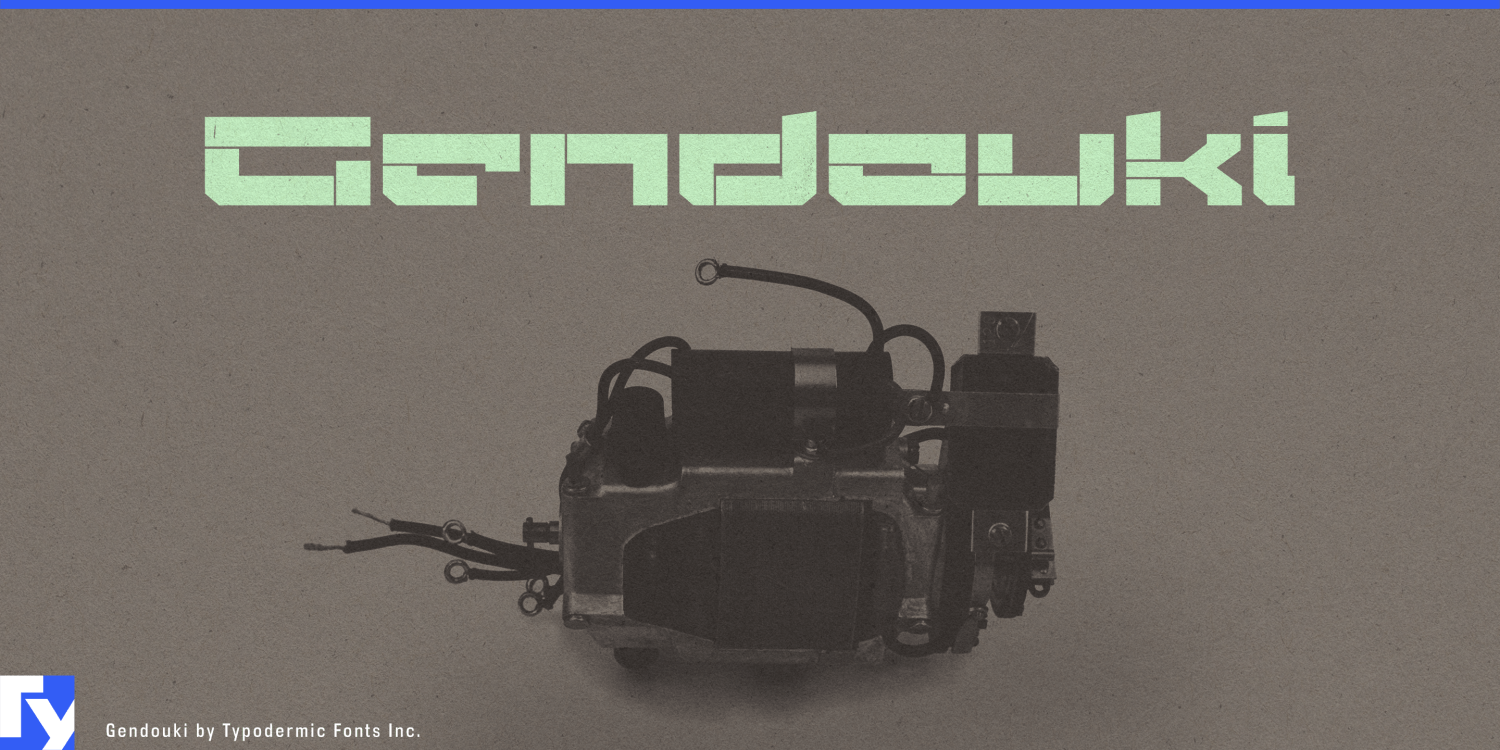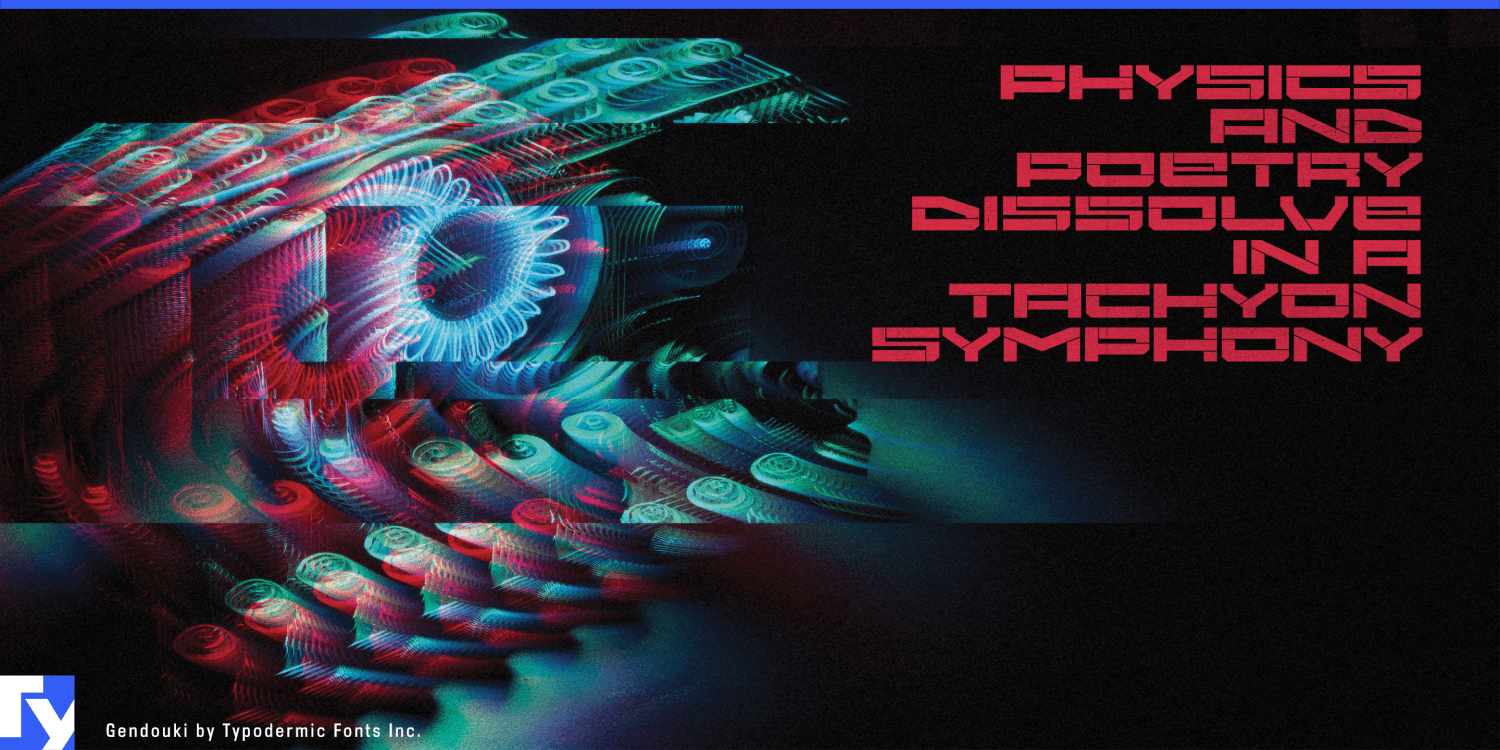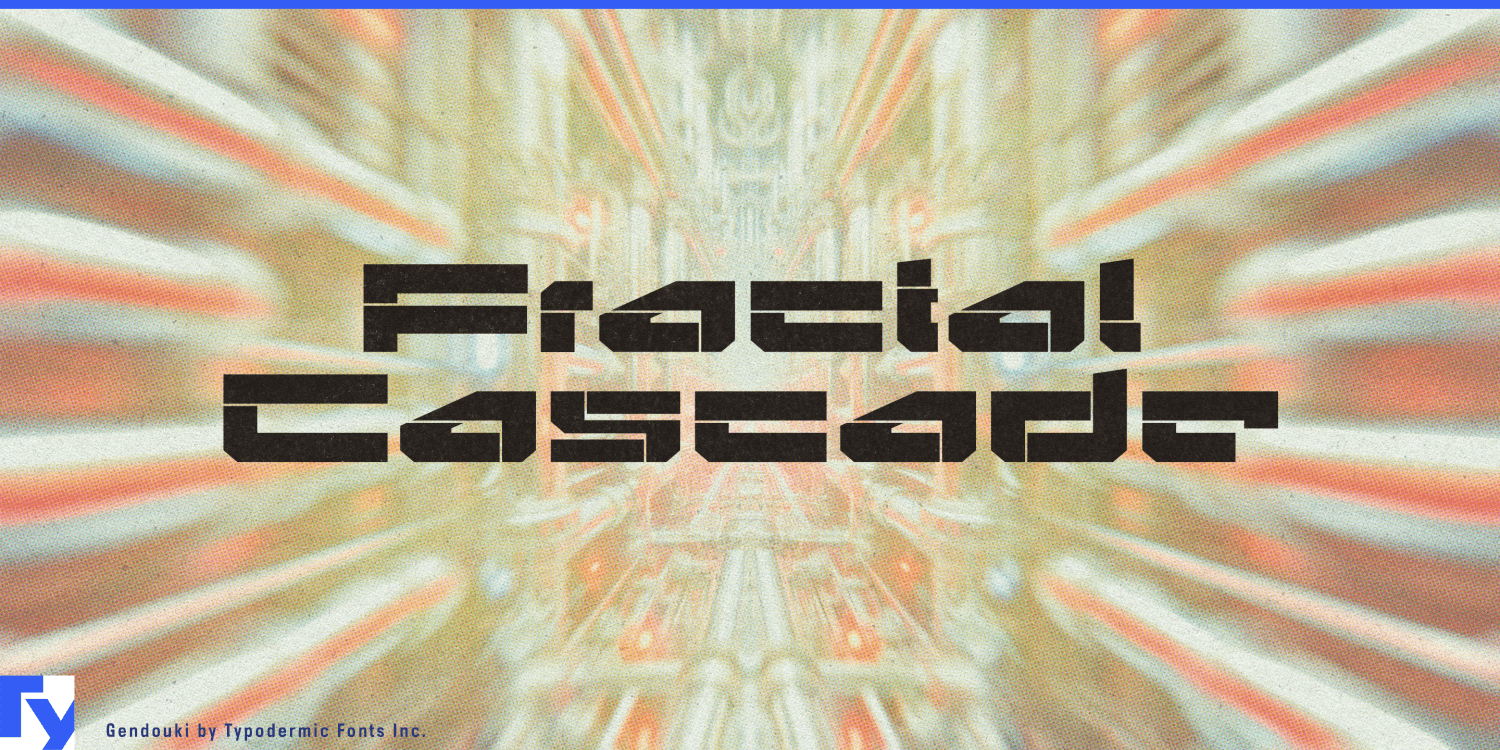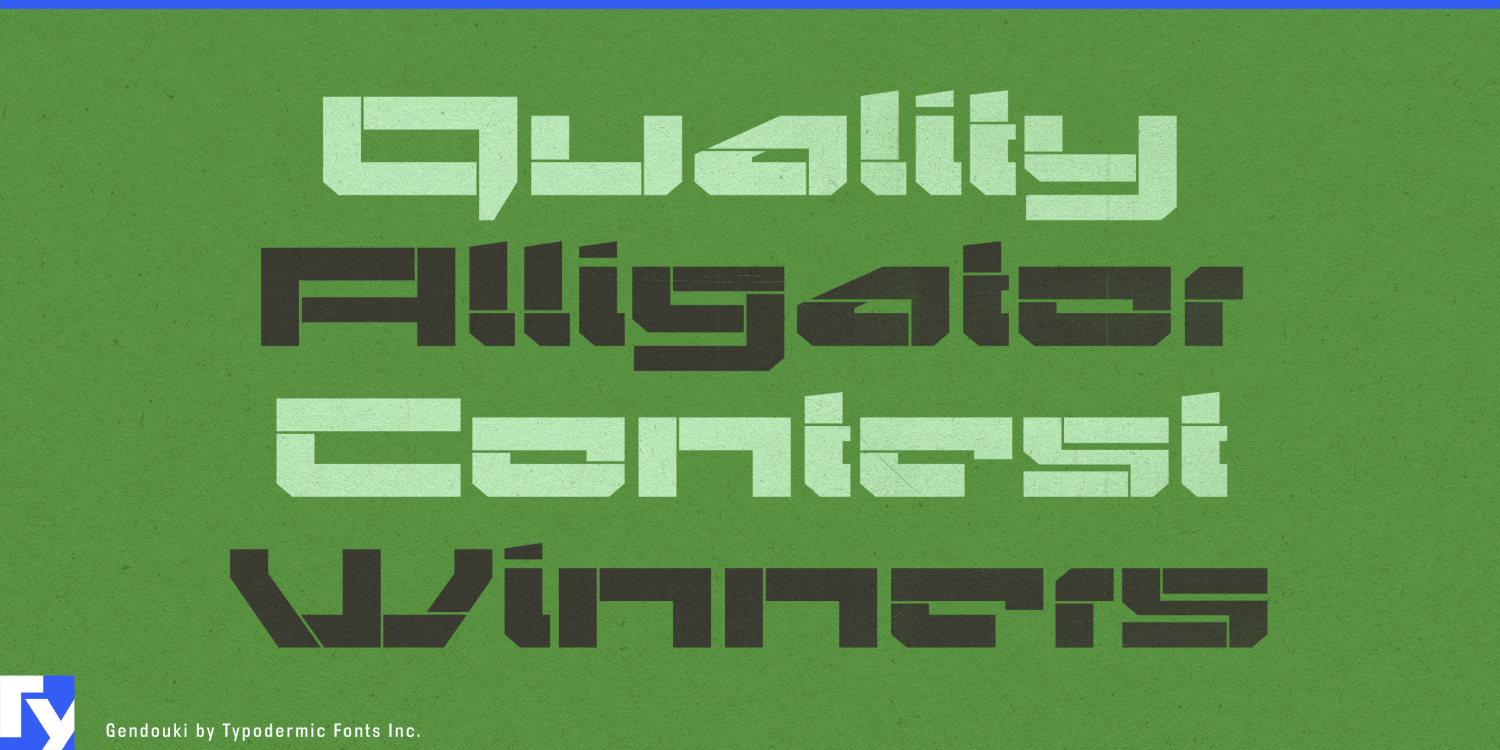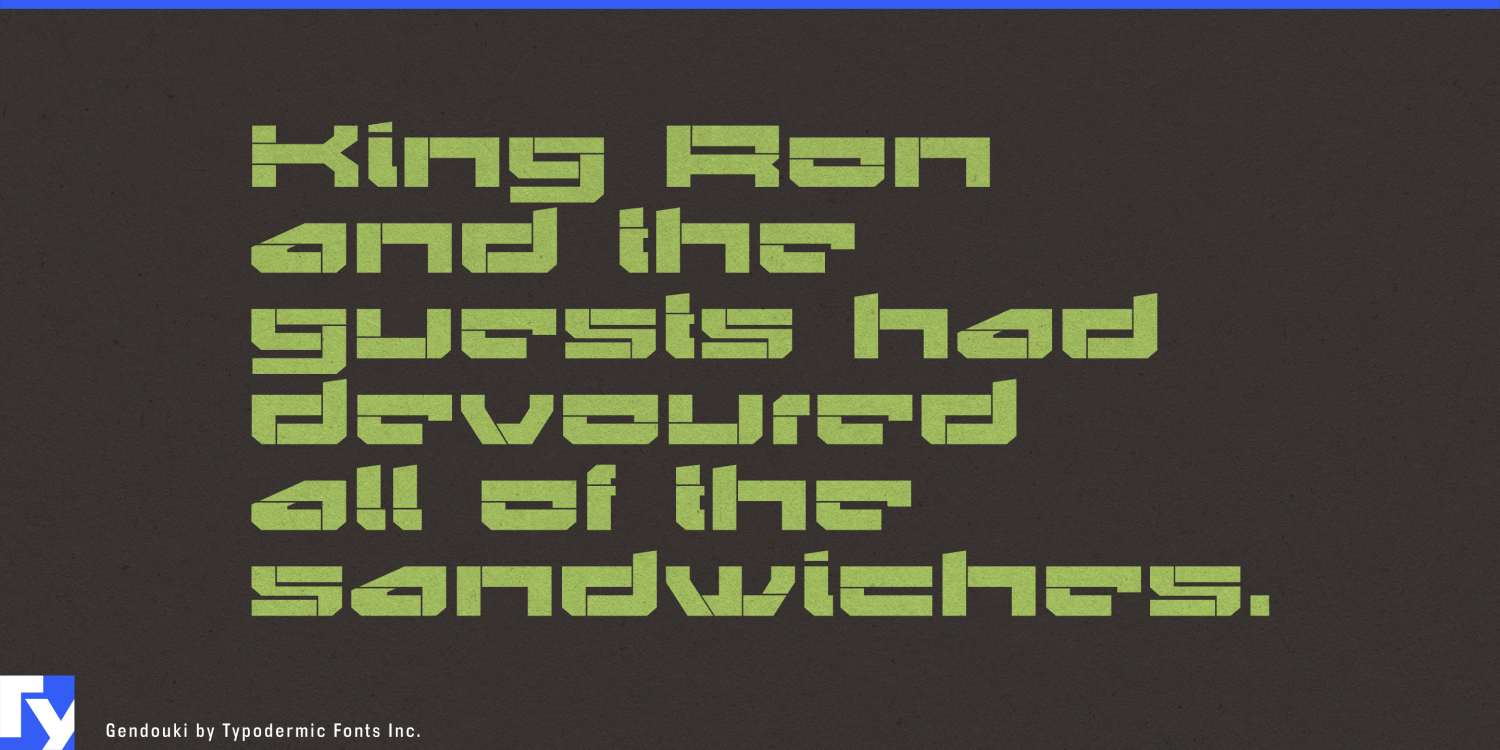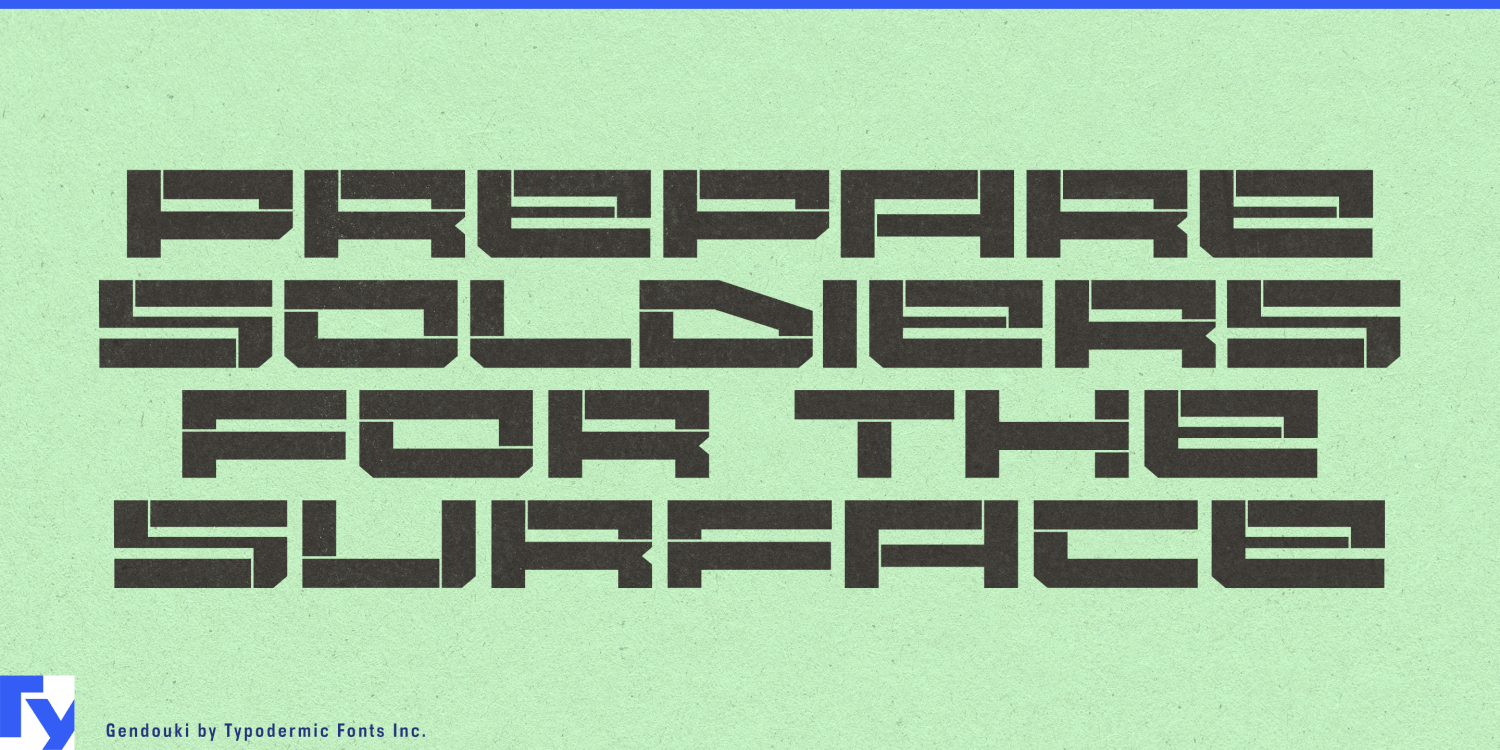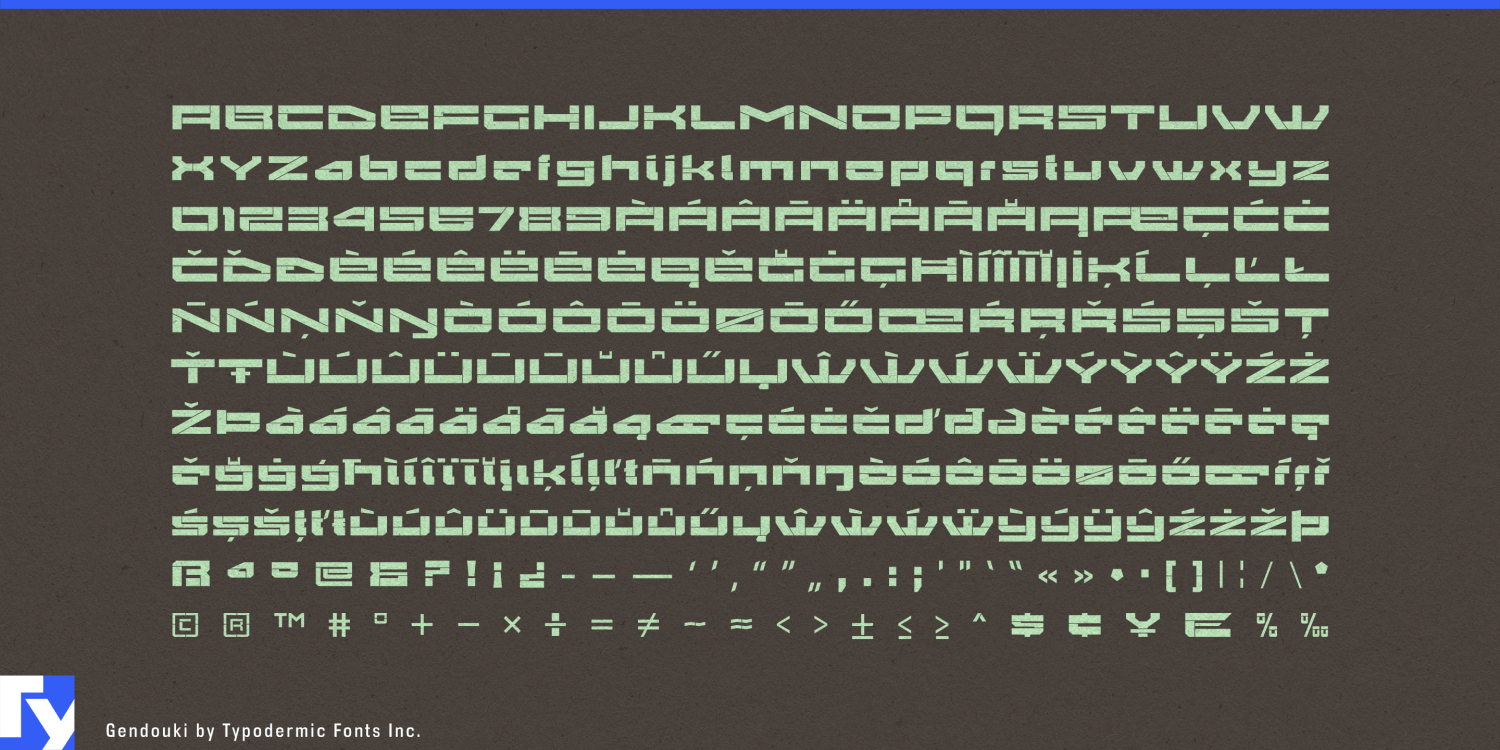
Gendouki
Font Family by Typodermic
Gendouki turns letters into fabricated assemblies. Thin cuts divide its strokes into plates and sections, giving the alphabet the appearance of something built from modular components rather than drawn as continuous forms. The original inspiration came from spacecraft access panels, but the same construction translates naturally into contemporary architecture, building systems, machinery, and other places where surfaces are assembled from engineered parts.
That makes modular construction an especially good fit. Prefabricated buildings, façade systems, architectural cladding, building-envelope products, structural components, and advanced construction technologies already communicate through panels, joints, seams, and repeated modules. On an architecture trade-show wall, a modular-building company identity, a façade product launch, or the name of a new construction system, Gendouki can look almost as though the lettering was fabricated alongside the product.
The effect becomes particularly strong at architectural scale. Large words on exhibition stands, construction hoardings, showroom walls, demonstration spaces, and architectural-product displays give the narrow interruptions enough room to become structural details of their own. Gendouki behaves less like ordinary headline typography in these settings and more like another element of the built environment.
Industrial machinery offers a related territory. Automation equipment, robotics, motion systems, specialist manufacturing hardware, and engineered product families can use Gendouki for company names, machine series, model names, and launch graphics. Its segmented strokes suggest joints between panels, housings, covers, and mechanical assemblies without copying the markings of any particular machine.
There is also a natural place for Gendouki in constructed visions of the future. Rather than relying on glowing screens and digital interference, its forms suggest the physical infrastructure behind the technology: spacecraft interiors, access hatches, industrial corridors, vehicle bodies, research facilities, and modular habitats. For science-fiction film, game, and entertainment production, it can give facilities, vehicles, organizations, and manufactured objects a visual language that feels physically assembled rather than merely computerized.
Gendouki is intentionally specialized. Its abstraction pushes some forms toward the edge of immediate recognition, so it is better suited to short names and prominent display typography than explanatory text. That limitation becomes useful when the job is to make a product family, building system, machine series, or enormous environmental word feel proprietary. The unusual shapes resist the anonymous quality of generic techno lettering.
The panel cuts are not decoration added to an otherwise conventional alphabet; they are the organizing principle that gives Gendouki its identity.